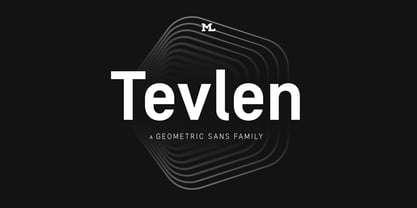
Tevlen
von Marc Lohner
Die Schriftfamilie Tevlen wurde von Marc Lohner entworfen und von Marc Lohner veröffentlicht. Tevlen enthält 15 Stile und Familienpaketoptionen. Mehr über diese Familie
Meet Tevlen, a versatile workhorse family for both texts and headlines based on a geometric and straight-lined design. It will give your apps, websites, logos, posters and so much more a techy and masculine look and feel. However, some friendly rounded details, such as the i-dot, add a rather pleasant personality to this family.
With more than 200 languages covered, many opentype features on board, obliques, and weights ranging from Thin to Black, Tevlen is a truly versatile companion for your next design project.
Marc Lohner is a graphic and type designer, running his own type foundry. His approach is to create charming and charismatic fonts that give logos, packagings, user interfaces and so much more a unique look. He pays great attention to subtle details in his design work, always aiming to provide quality fonts that come up with large language coverage and useful opentype features. His clients range from freelancers all the way to well known companies.